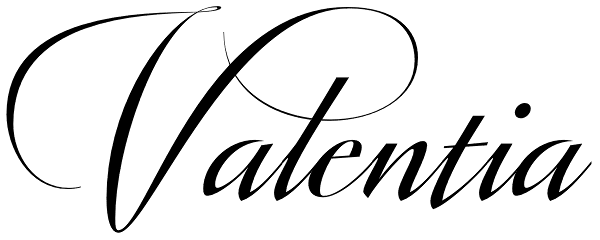
Valentia
Valentia is an elegant font, casual and readable, this new script typeface is based on Copperplate style. Valentia has been drawn with spontaneous strokes and slightly contrasting thicknesses.The capital letters are full of expressiveness, with very...